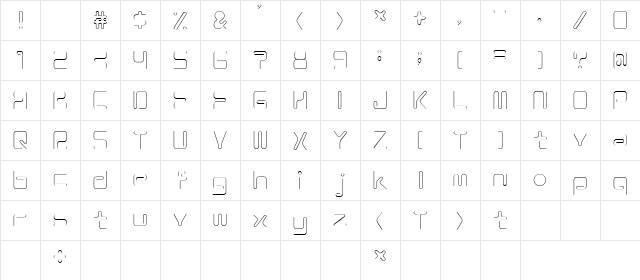
Coil ALl
| Style | ALl |
Design Context for Coil Typeface
Coil offers clean, dependable letterforms without strong stylistic allegiance, making it a practical choice for designers who need flexibility.
Pro Tip: Pair Coil with a font of contrasting weight or personality to build a more expressive typographic hierarchy.